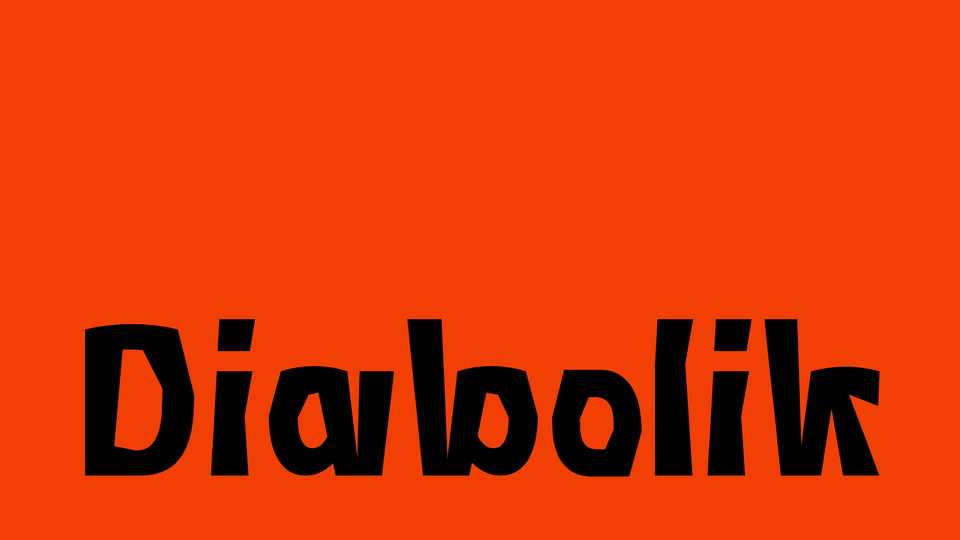
Download Diabolik font, a typeface inspired by the lettering of crime comics from the 1960s. Diabolik is a variable typeface ranging from a thin to a very bold weight.
Designer: Camille Wisniewski